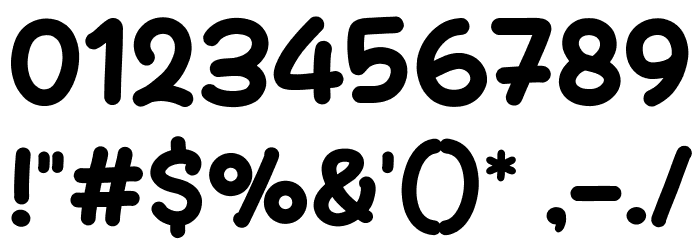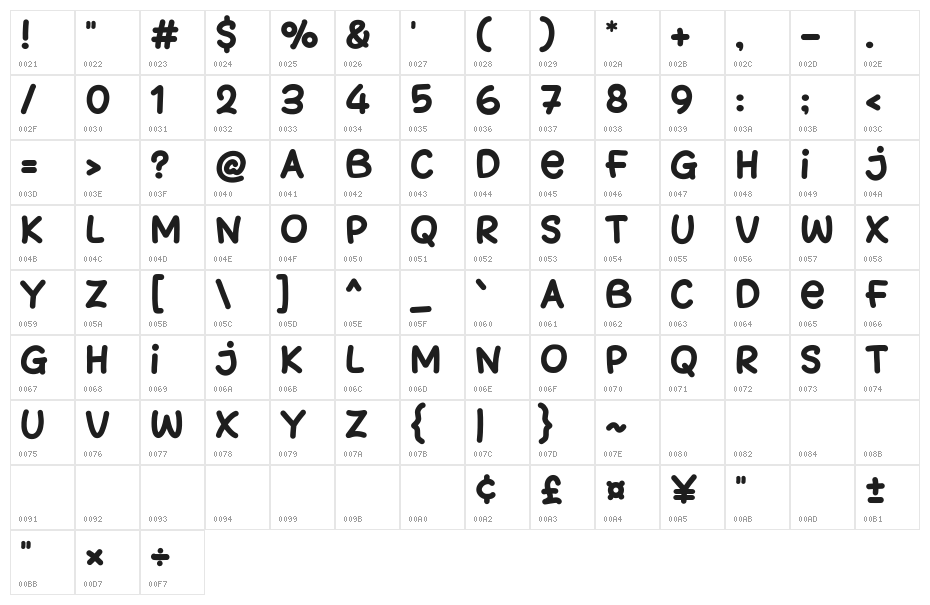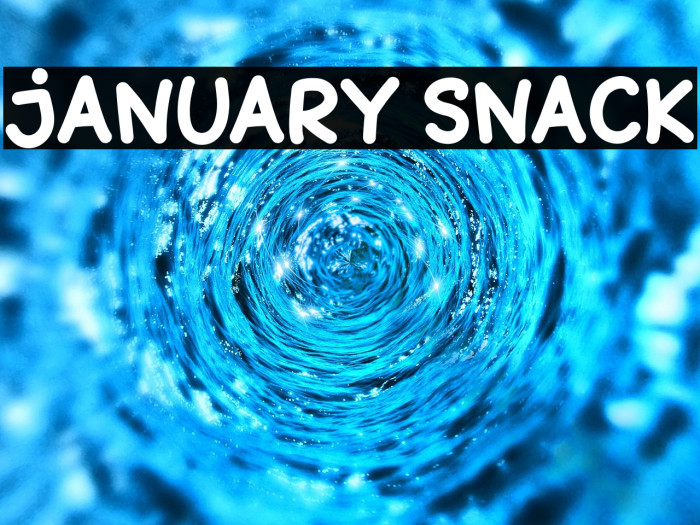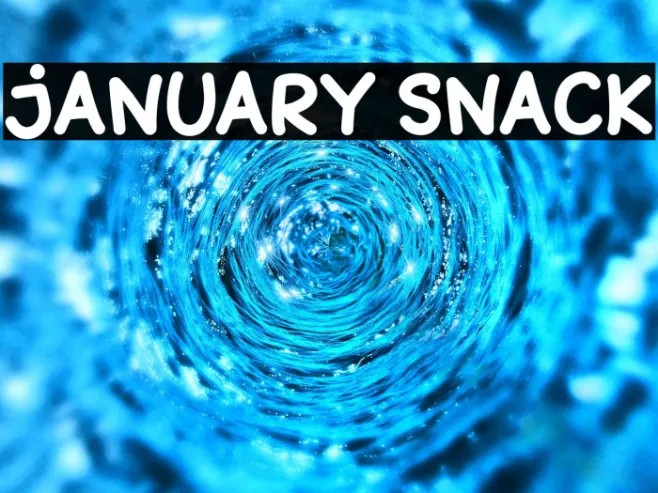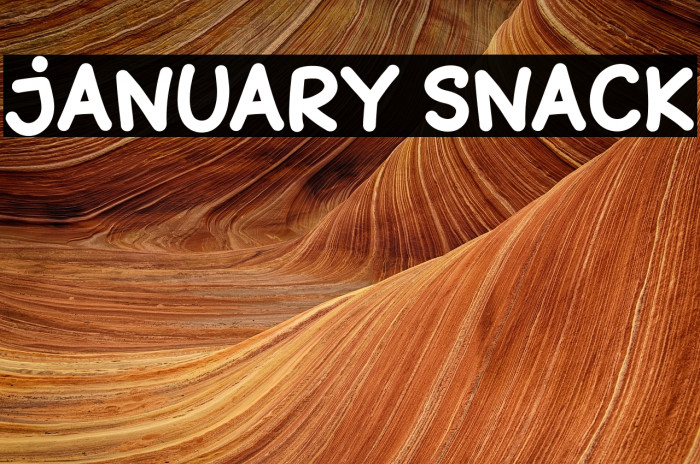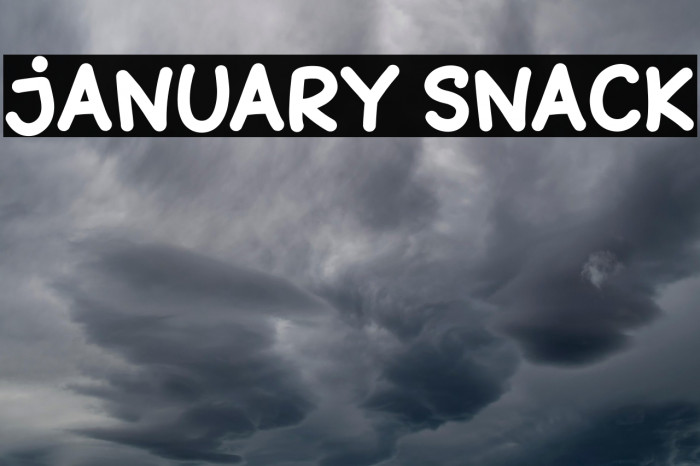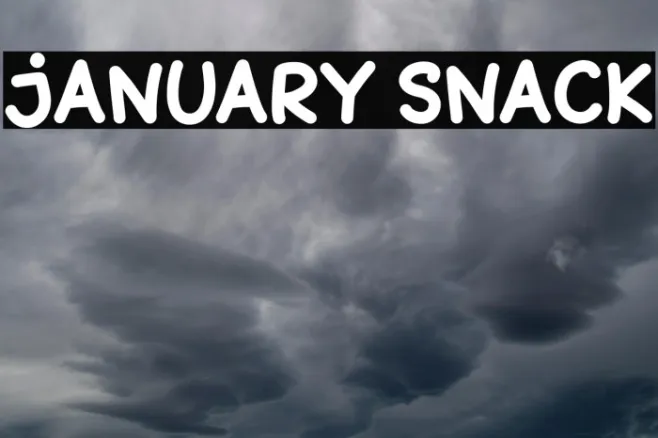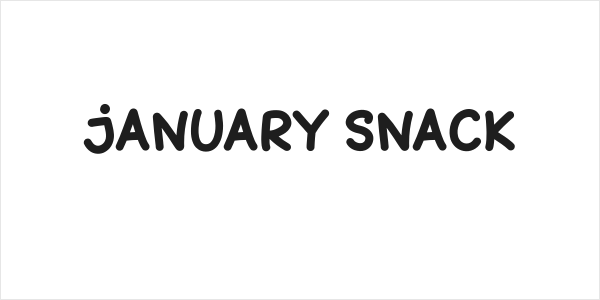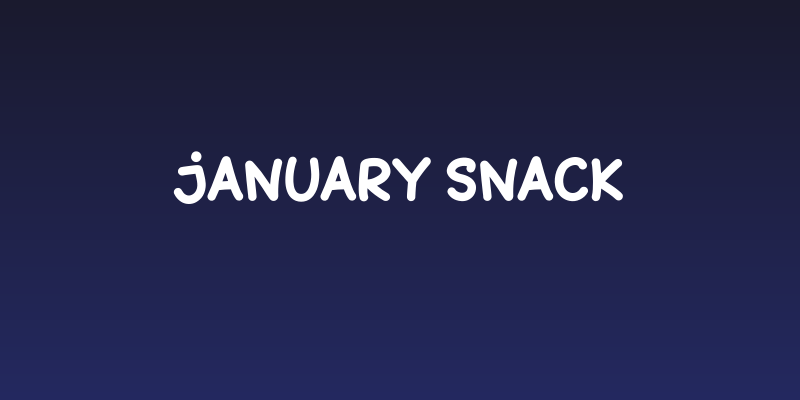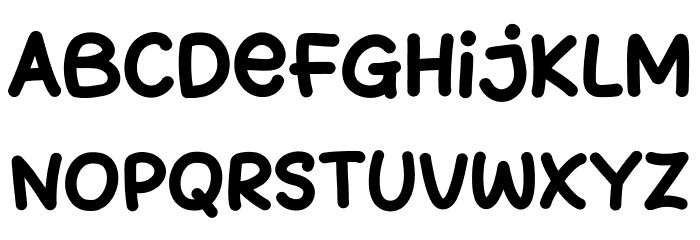
January Snack Font
January Snack Description
This playful and bold font features rounded, bubbly characters that exude a sense of fun and approachability. The letters are uniformly thick, with a consistent stroke width that gives them a cohesive appearance. The rounded edges and slightly exaggerated curves contribute to its friendly and informal style. This font is highly legible, even at smaller sizes, making it versatile for various design applications. The numbers and special characters maintain the same playful aesthetic, ensuring a harmonious look across all text elements.
| Proposed Projects | Ideal for children's books, playful branding, party invitations, and casual social media graphics. |